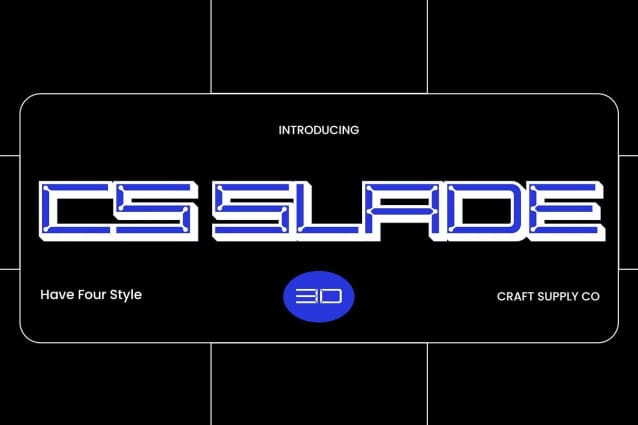
CS Slade 3D Font
CS Slade 3D Font is a modern sans-serif font that combines inktrap details, a wide form, and a striking 3D effect. The inktraps enhance sharpness and clarity, especially at smaller sizes, ensuring exceptional readability. Its wide, stable letterforms exude strength and confidence, while the 3D effect adds depth and visual intrigue, making it a standout choice for designs that demand attention.
Dynamic and Professional Aesthetic This font is perfect for projects where futuristic style meets professionalism. The wide structure conveys stability and authority, while the 3D elements introduce a dynamic, innovative edge. The inktrap detailing provides an extra layer of precision, reinforcing its suitability for cutting-edge branding and design.
Ideal for Tech, Digital, and Creative Projects CS Slade 3D shines in technology branding, digital interfaces, and creative projects that require modernity and impact. From tech startups to futuristic advertising campaigns, its unique blend of structure and depth delivers a commanding visual presence that feels both professional and contemporary.
Versatile and Eye-Catching Whether for headlines, logos, or promotional designs, CS Slade 3D’s combination of clean geometry, bold forms, and 3D dimension ensures versatility and appeal across various media. It’s the go-to font for those looking to make a powerful statement with a modern, dimensional flair.